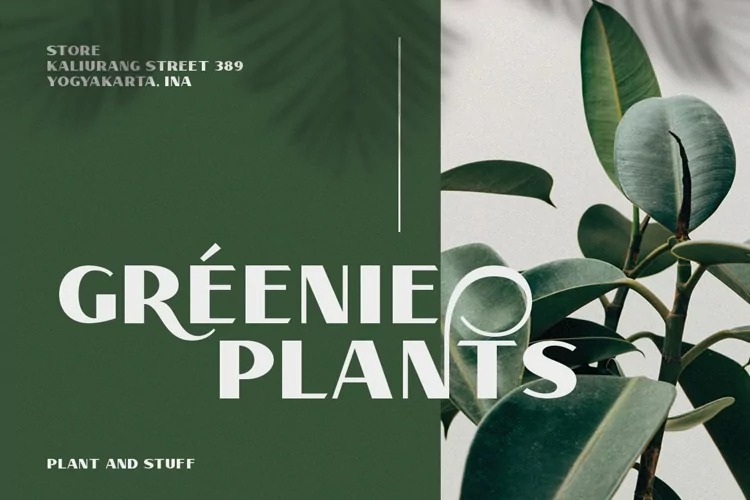
Verilate Font
Verilate Sans Serif Font
This is a vintage sans serif typeface crafted & designed by Dunyawi. With bold weight, unique and fun character with alternative letters. Very suitable as to make a design choice such as logos, branding, magazines, headlines, websites, packaging, wedding cards and more creative project! All-caps characters, with over 400 glyphs VERILET’s also has a lot of alternative characters. It looks really cool when elegant meet vintage to any piece.